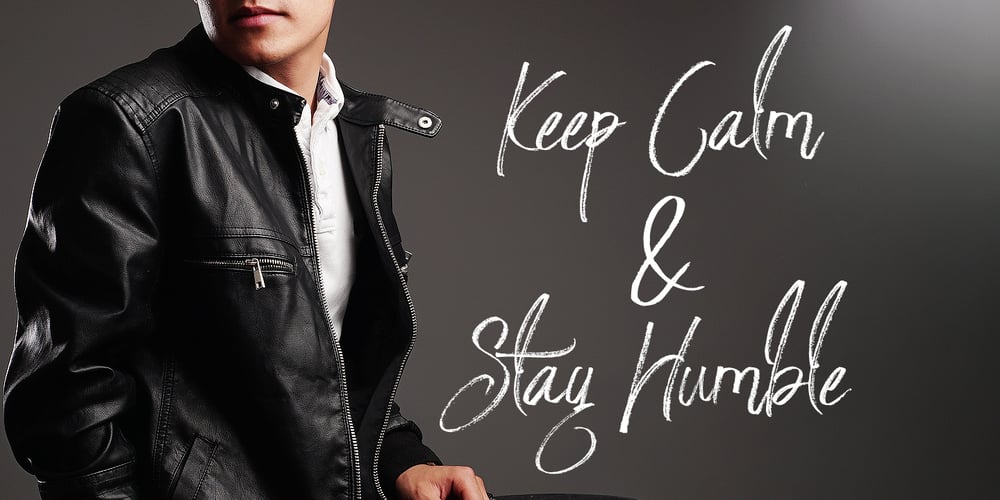
Strongloves Font Family was designed by Ferry Hadriyan and published by FHFont. Strongloves contains 1 styles and family package options. Strongloves is dry brush, hand-lettered script. It is suitable for design, element design, weddings, events, t-shirt, logos, badges, sticker, and awesome work.